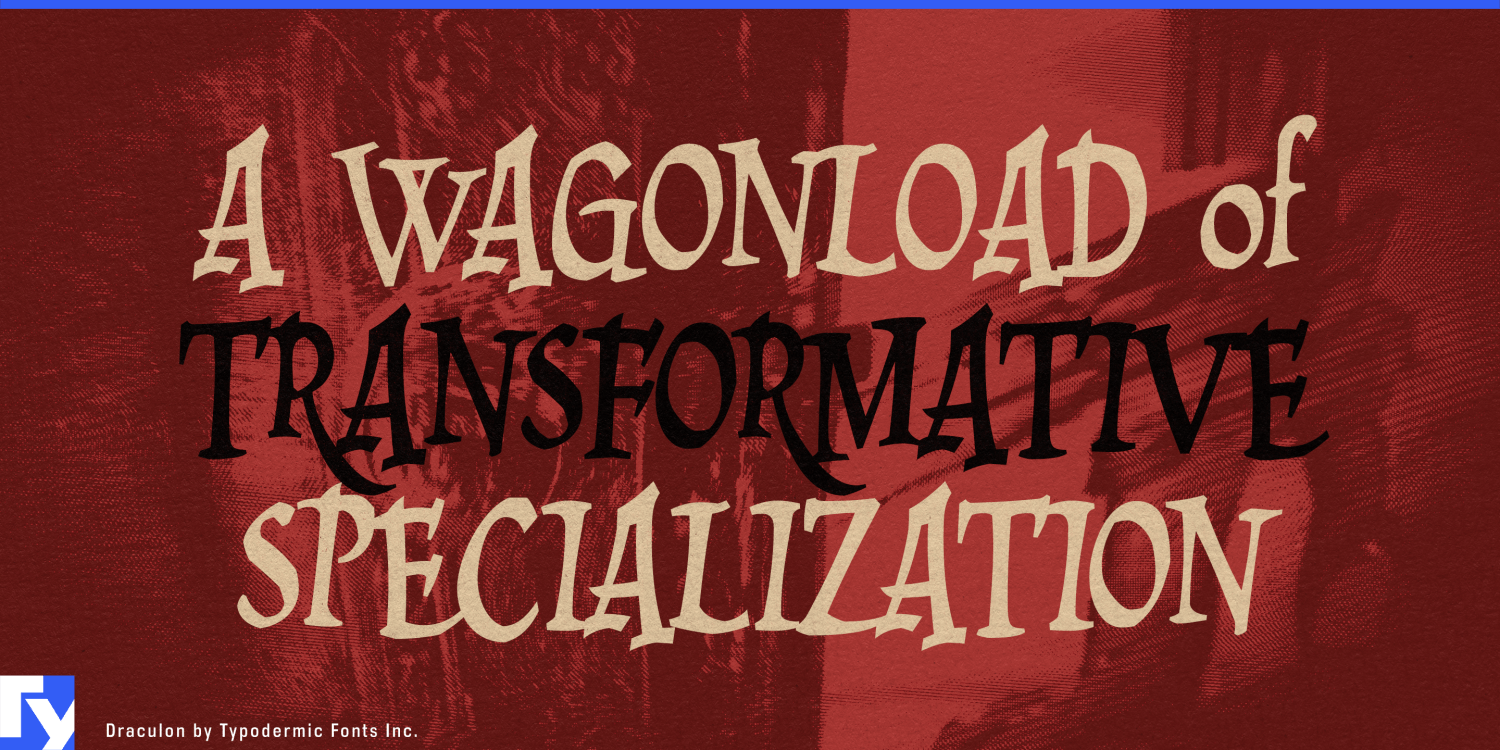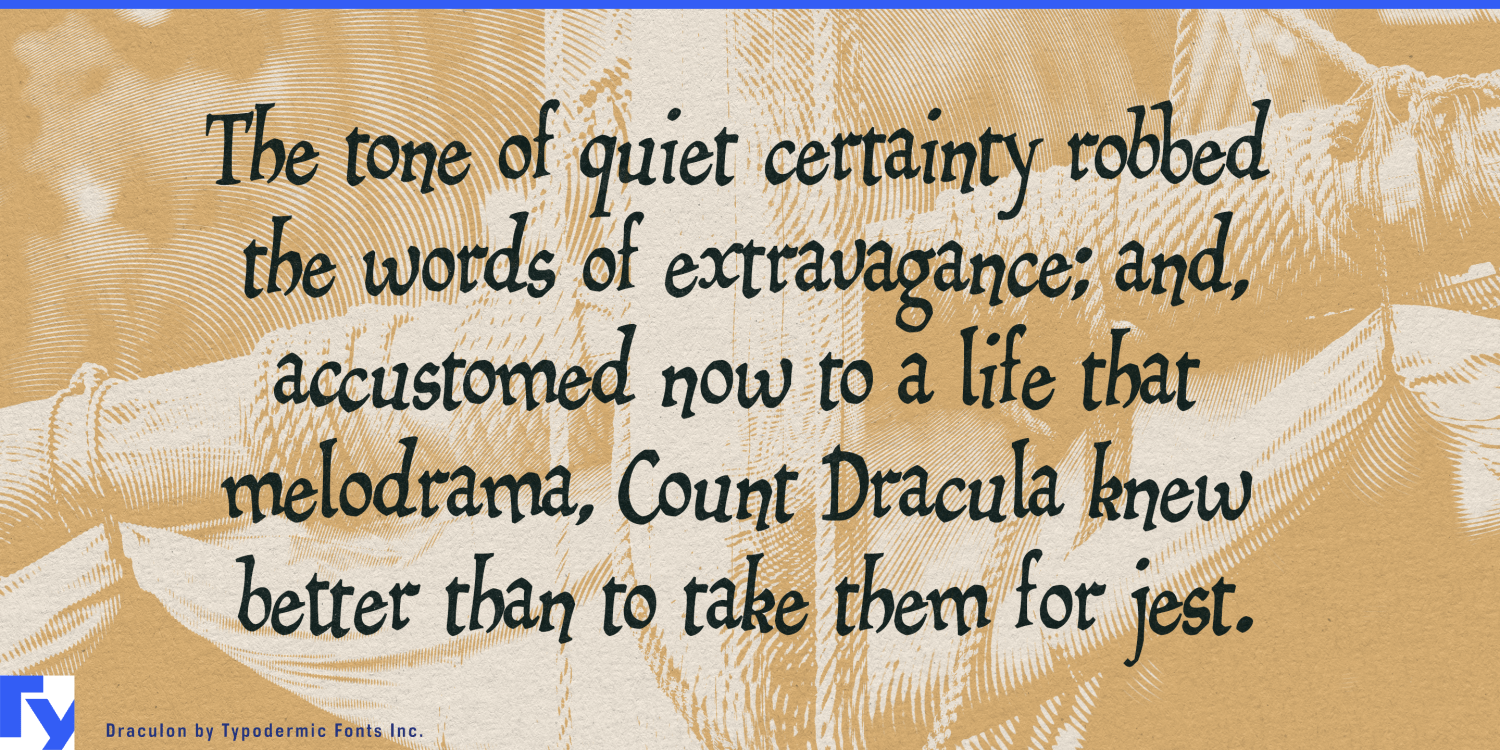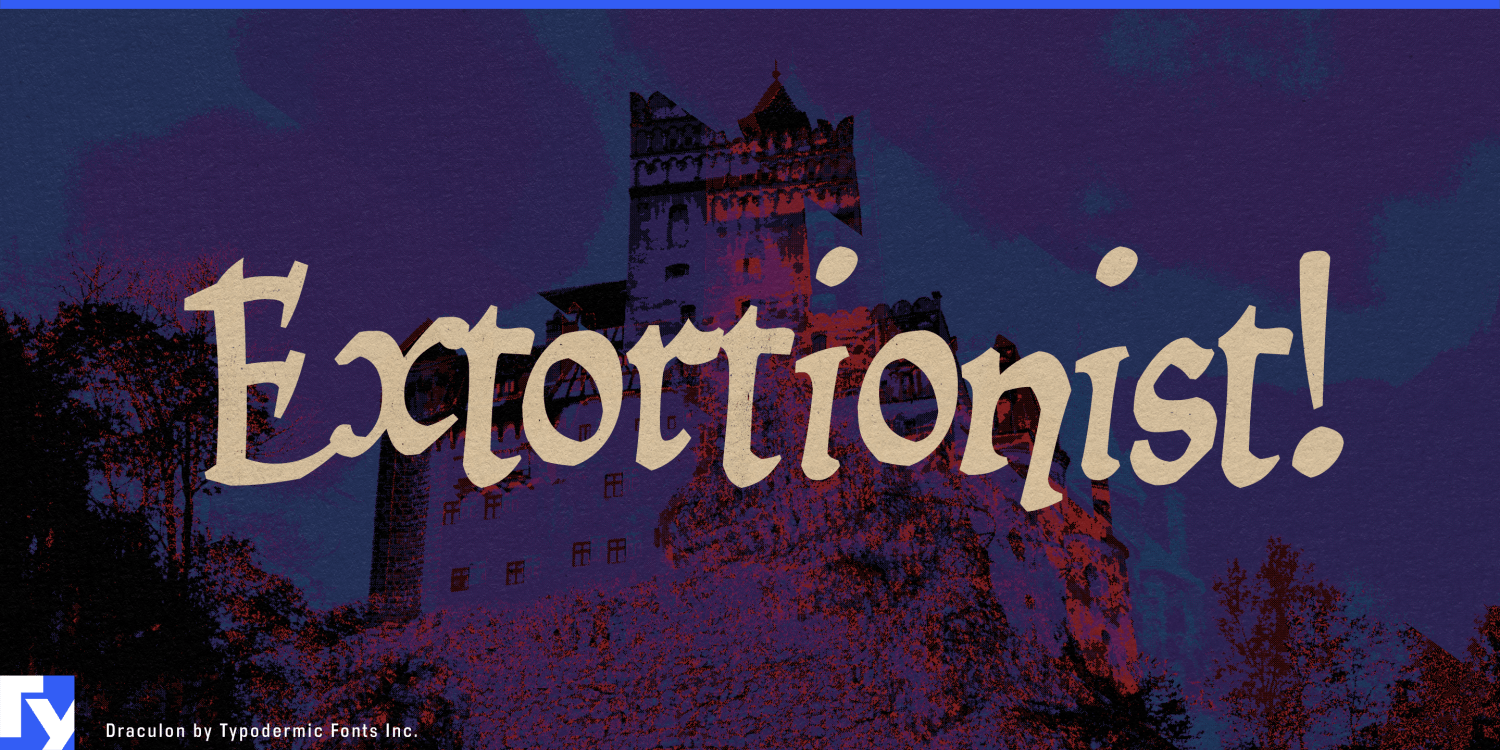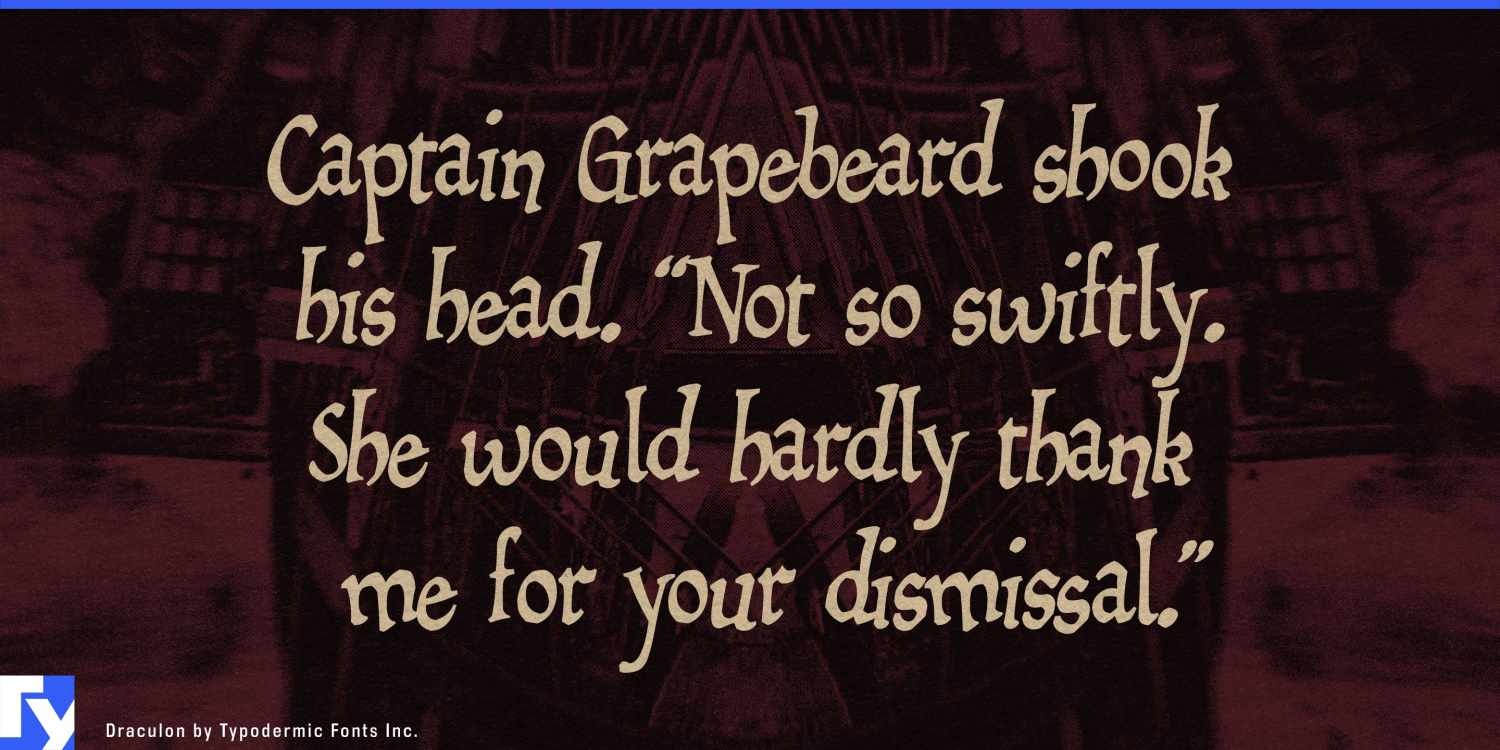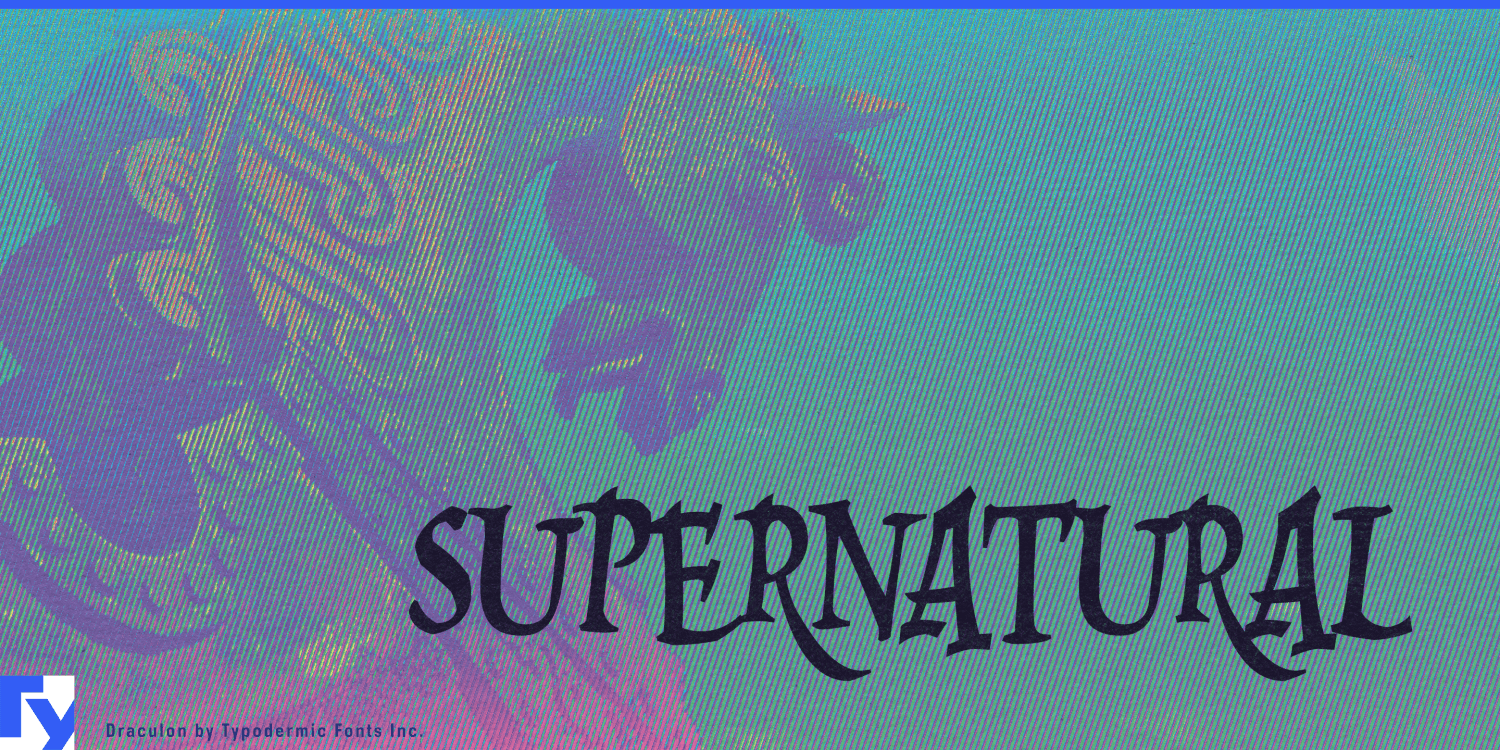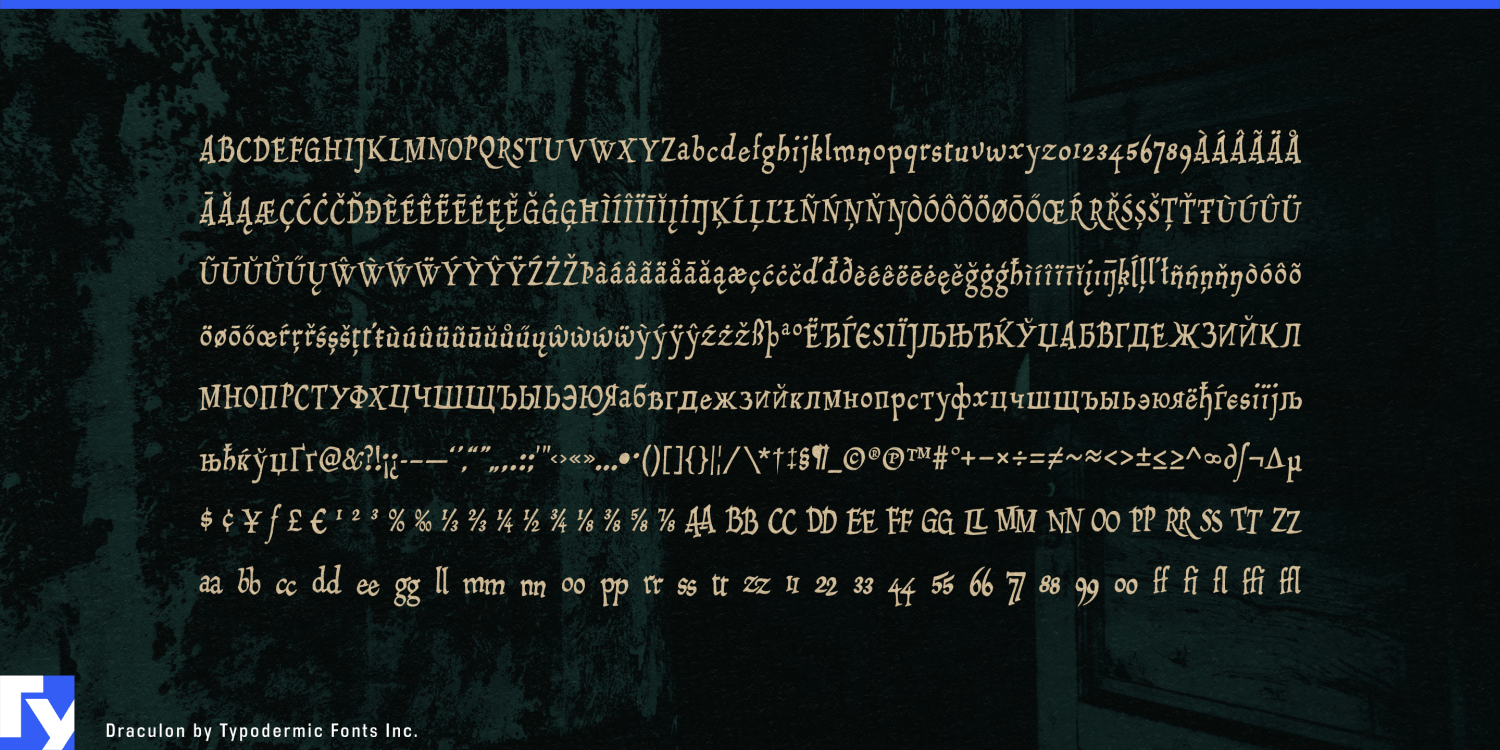
About Draculon
Draculon: The typeface that bites back with historical flair. This Typodermic Fonts creation is a time-traveling chameleon, blending 15th-century Italian manuscript elegance with a dash of Transylvanian terror. Inspired by William Orcutt’s 1904…